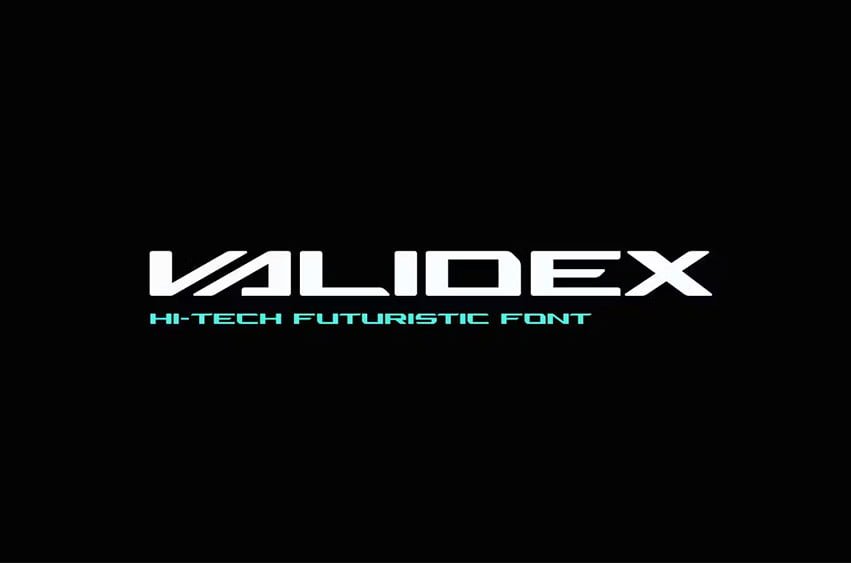
Validex Technology Font
Validex Technology Font creates a modern futuristic hi-tech atmosphere and style. It is good-looking as a header and as text both. Use it in your projects in such areas as robots and androids, hi-tech, future, virtual reality, space, sports and many others.